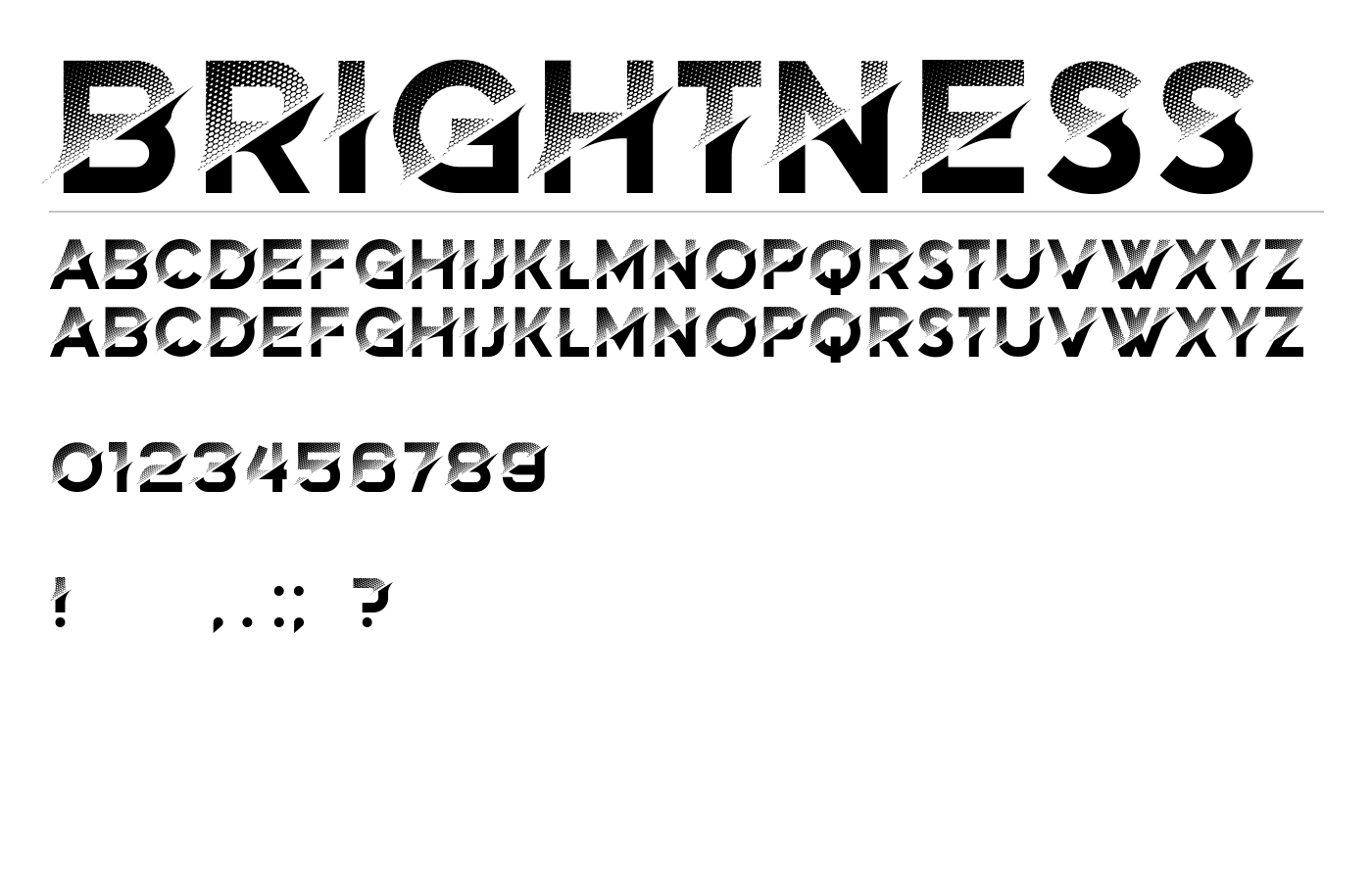
Brightness Font is a bold, modern sans serif with a striking geometric style and high contrast created by sharp halftone shading that gives a dynamic sense of depth and motion. Its uppercase letterforms are wide with clean edges and angular cutouts, making it perfect for eye-catching headlines, branding, or posters where a futuristic and energetic vibe is desired. This font works especially well in creative, tech, or entertainment industries where a bold statement and visual impact are key.
Brightness Font
About Brightness Font
| Font family | Brightness Font |